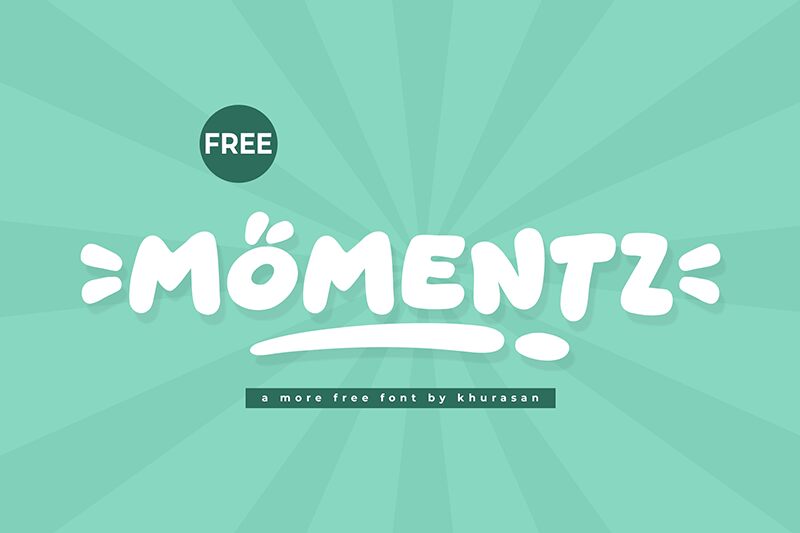
Momentz
Momentz font, designed by Khurasan, is a bold cartoon display font that gives off an energetic vibe. It carries a modern yet retro appeal thanks to its bubbly letters and casual appearance. Ideal to create fun and relaxed designs, it is a wonderful choice for different graphic projects.
Make the most of this free display typeface by using it in book covers for kids, comics, sticker designs, video games graphics and interfaces, music album covers for kids’ songs or shows. It also suits logos with mascot characters whether that be sports or bakery businesses!